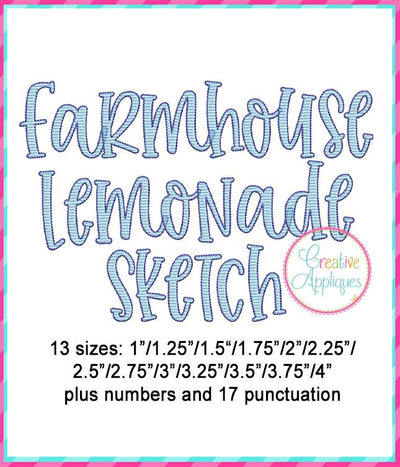
Farmhouse Lemonade Sketch Stitch Embroidery Font
Sewn in a sketch stitching allowing item being sewn on to show thru.
1. Upper and lower case letters A thru Z. Please review all letters as some uppercase and lower case letters are similar.
3. 17 Punctuations ! @ # $ % & * ( ) , . / ? ; : ‘ ”
4. Numbers